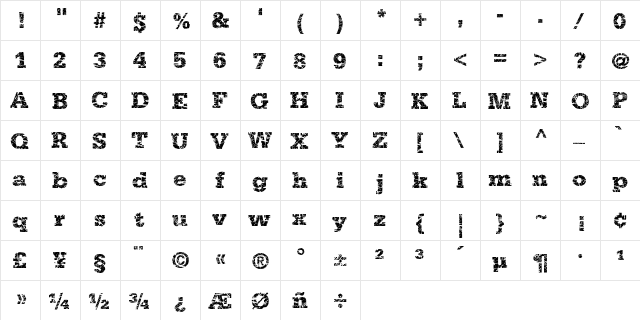
Grunge Serifia Black
| Foundry | Justin Rotkowitz |
| Designer | Justin Rotkowitz |
Design Context for Grunge Serifia Typeface
Grunge Serifia trades polish for personality, using distressed and eroded forms to bring grit and attitude to creative work.
A strong fit for alternative music projects, graffiti-adjacent design, and anything that deliberately resists polish.
Pro Tip: Use Grunge Serifia at larger sizes where the texture and irregularity of each letterform can be clearly seen — it loses its character at small sizes.